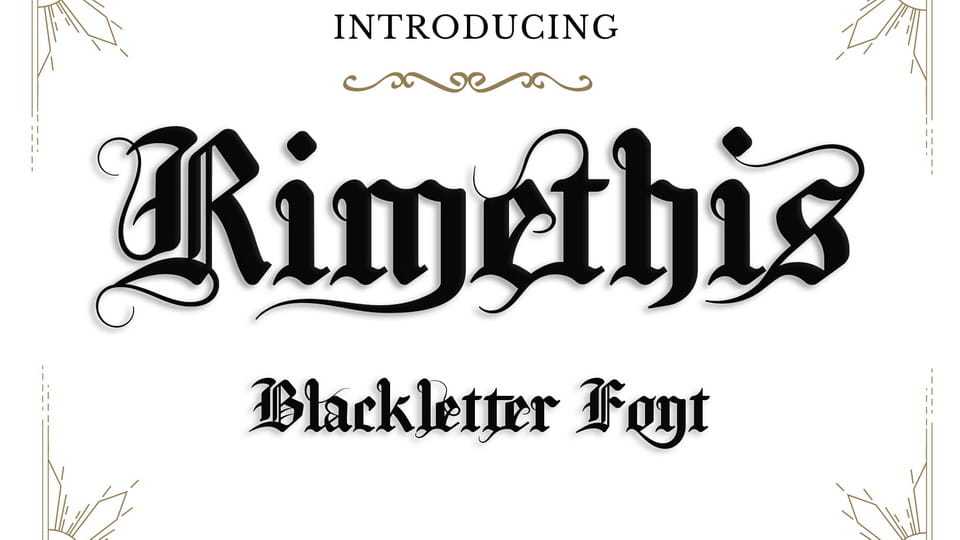
Download Rimethis font, a stunning blackletter typeface that embodies the essence of gothic elegance and timeless craftsmanship. With its dramatic curves and sharp edges, it breathes life into an atmosphere of mystery and enchantment.